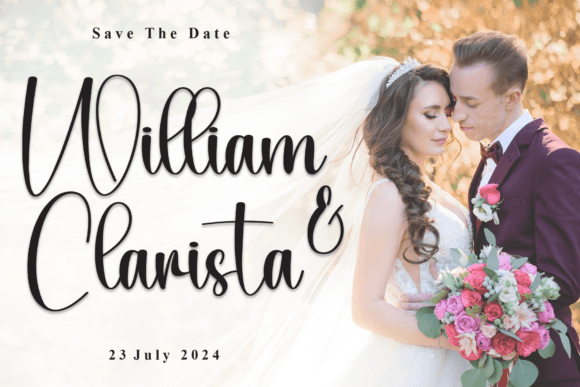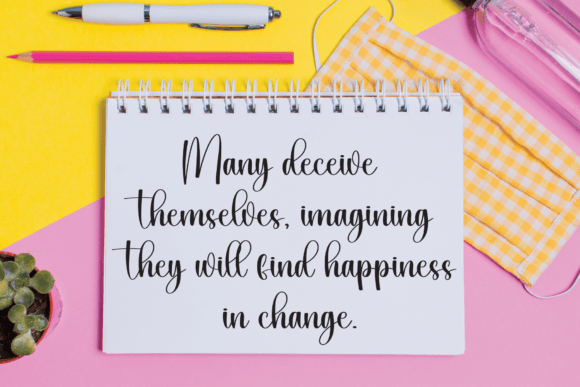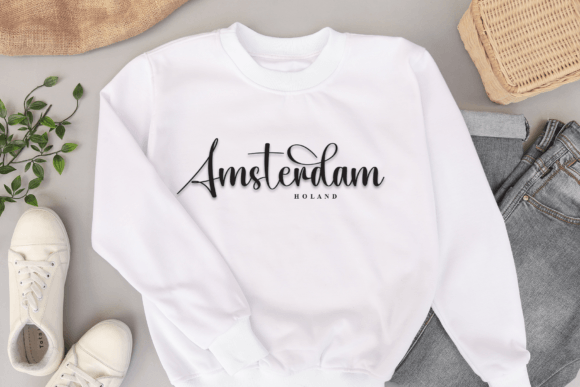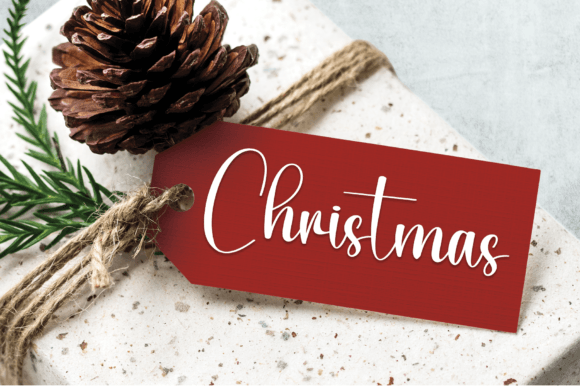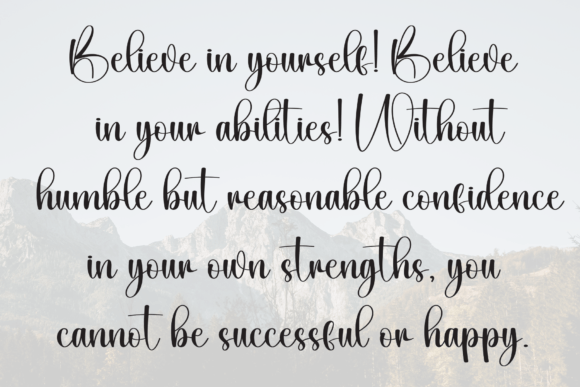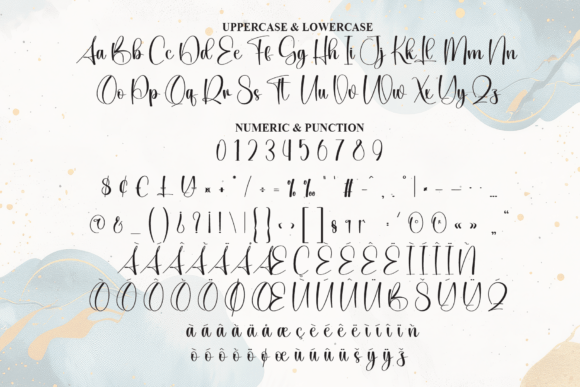
The Perfect Brushstroke: Unlocking the Power of Artwork Font
Have you ever sat down with a blank page, a pen in hand, and a burst of creativity flowing through your veins? That’s the magic of bringing your ideas to life. For designers, this moment is all too familiar. But what if you could capture the essence of that creative spark in your digital projects? Enter Artwork Font, a stunning handwritten font that recreates the look and feel of elegant, personal handwriting.
Artwork Font is more than just a font – it’s an invitation to add a touch of sophistication and whimsy to your designs. Whether you’re crafting a logo, creating a wedding invitation, or designing a marketing campaign, this beautiful font is the perfect companion to bring your vision to life. And for designers, it’s a valuable asset that can elevate your work from ordinary to extraordinary.
Key Features of Artwork Font
- Font Styles: Artwork Font offers a variety of font styles, including script, brush, and handwritten fonts, making it suitable for various design projects.
- Character Set: Includes a wide range of characters, including Latin, Cyrillic, and Greek alphabets, as well as punctuation and symbols.
- Unique Characteristics: Artwork Font features a unique blend of modern and vintage elements, giving it a distinctive and eye-catching appearance.
Artwork Font Review
I’ve had the chance to work with Artwork Font for a project, and I must say it’s a mixed bag. Here are my thoughts:
- Unique Aesthetic: Artwork Font has a distinctive, hand-drawn feel that sets it apart from other fonts.
- High-Quality Glyphs: The font’s glyphs are well-crafted and display well in various sizes and resolutions.
- Good for Creative Projects: Artwork Font is perfect for projects that require a touch of whimsy and personality.
- Limited Character Set: Artwork Font’s character set is relatively small, which can make it less versatile for longer texts.
- Not Ideal for Body Text: While it’s great for headings and titles, Artwork Font may not be the best choice for body text due to its irregular spacing and letterforms.
- May Require Adjustments: Depending on the project, you may need to adjust the font’s size, line height, or letter spacing to get the desired look.
Artwork Font is a great choice for projects that need a unique, creative touch. While it may not be suitable for every project, it’s a solid option for designers looking to add some personality to their work. Just be aware of its limitations and adjust your expectations accordingly.
Use Artwork Font to add a touch of elegance to your designs, such as in headings, titles, or quotes. Experiment with different font sizes and styles to create visual interest. You can also use Artwork Font in combination with other fonts to create a unique and eye-catching design.
Artwork Font is perfect for:
- Designing invitations and event materials
- Creating social media graphics and posts
- Developing branding materials, such as logos and business cards
- Designing digital products, such as ebooks and presentations
Playfair Display is a luxurious, elegant font ideal for creating high-end designs, such as luxury brand logos or upscale magazine covers. It features intricate details and flourishes, making it perfect for adding a touch of sophistication to your design.
Compared to Artwork Font, Playfair Display is more formal and ornate, while Artwork Font is more playful and versatile. Playfair Display is best used when you want to convey luxury, elegance, and refinement.